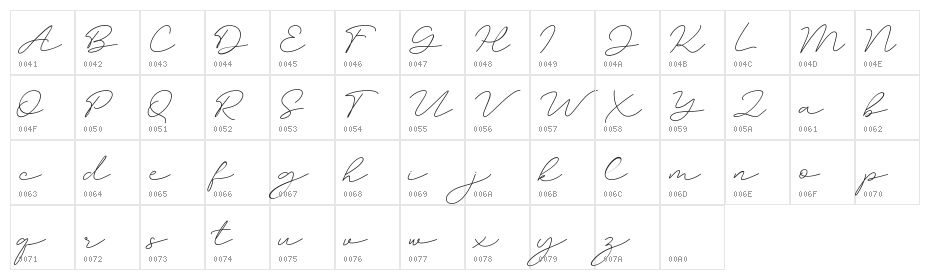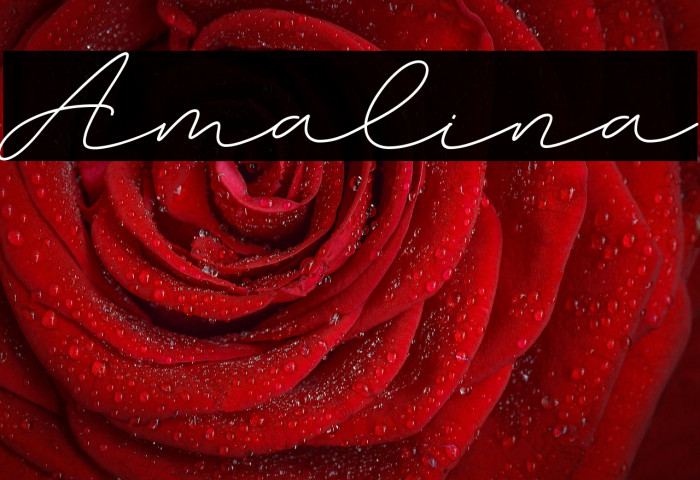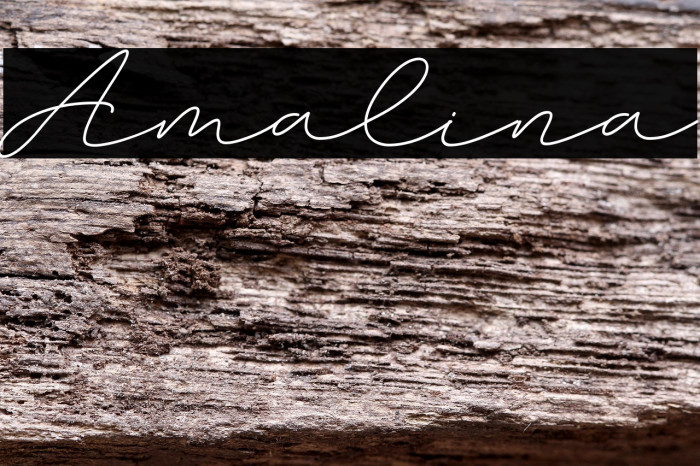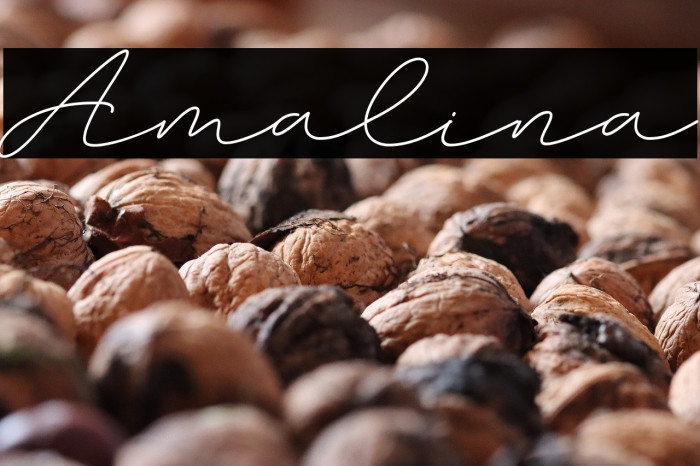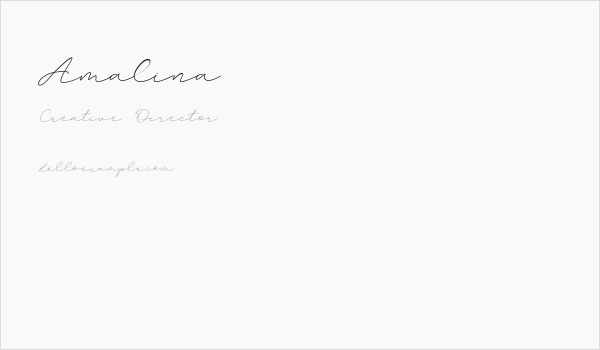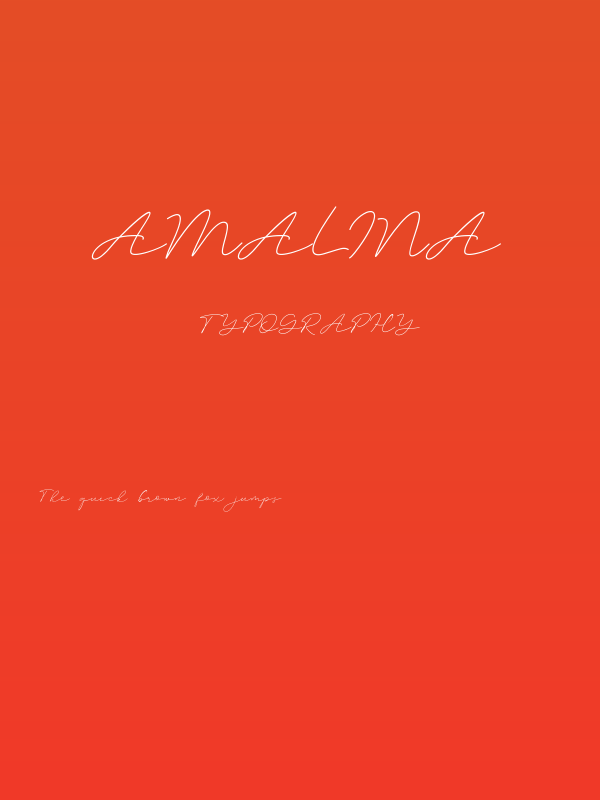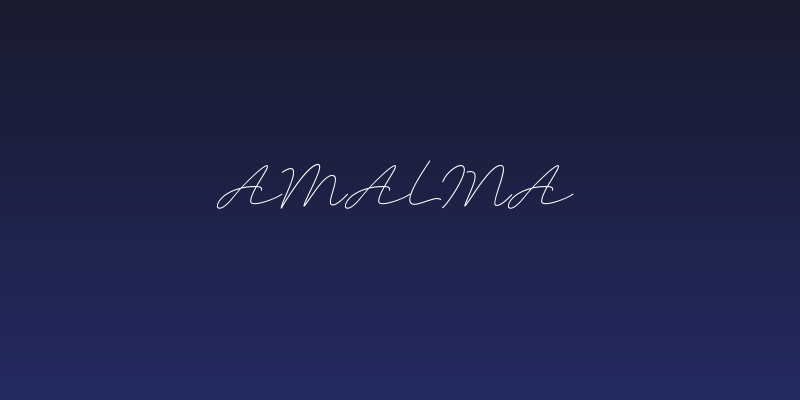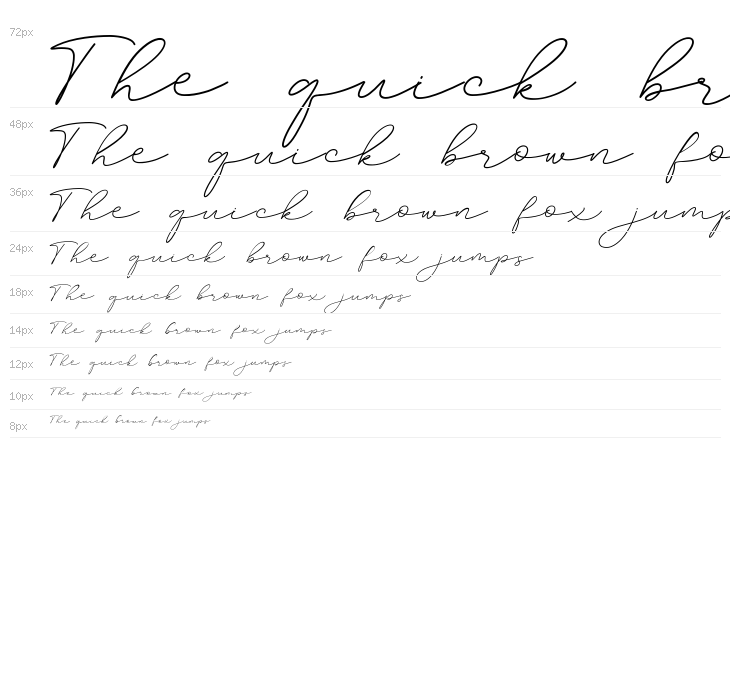
Amalina Font
Amalina Description
This elegant script font features fluid, interconnected strokes that mimic the natural flow of handwriting. The characters are gracefully elongated, with a consistent slant that adds a sense of motion and sophistication. The uppercase letters are slightly more ornate, with subtle flourishes that enhance their visual appeal. The lowercase letters maintain a smooth, continuous line that ensures readability while preserving the font's artistic flair. The overall design is delicate yet impactful, making it suitable for a variety of creative applications.
Overall StyleElegant
Use CaseLogos, Invitations, Personal Branding
Proposed ProjectsIdeal for wedding invitations, greeting cards, personal branding, and elegant logo designs.